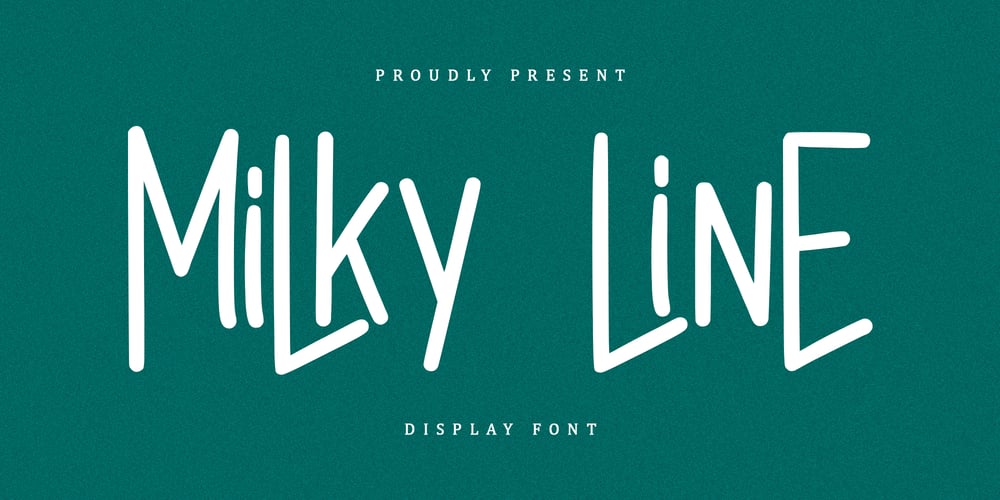
Milky Line
Milky Line font
Milky Line Font Family was designed by Alif Ryan Zulfikar and published by Sakha Design. Milky Line contains 2 styles and family package options. Milky Line is a modern and elegant display font! Each letter is thoughtfully crafted with clean lines and stylish details, resulting in a sophisticated and refined look. Perfect for creating eye-catching headlines, titles, and branding materials that exude an air of professionalism and high-end quality.